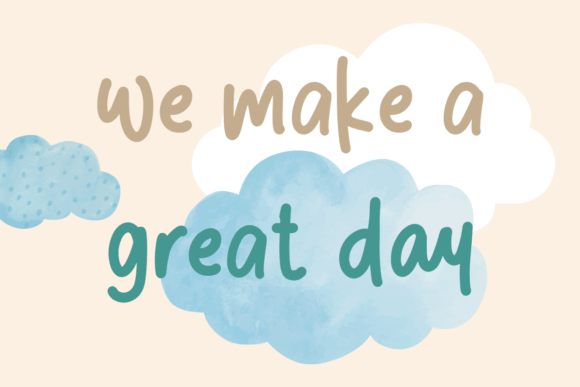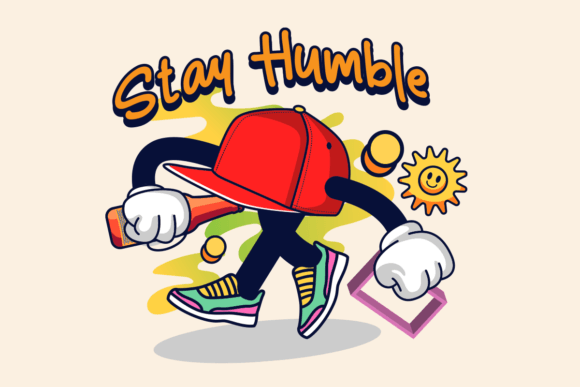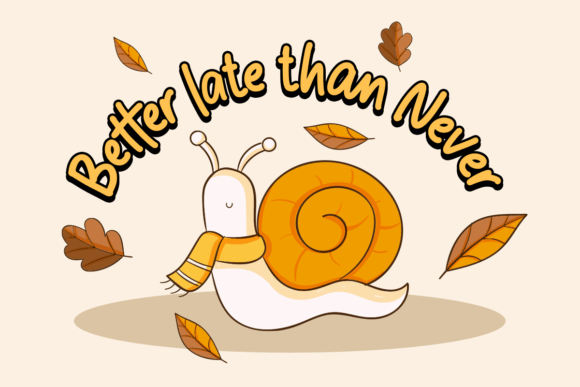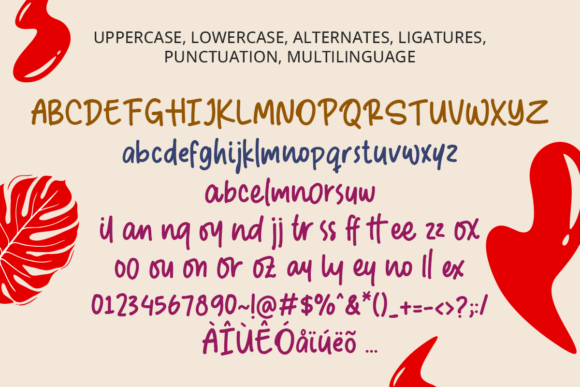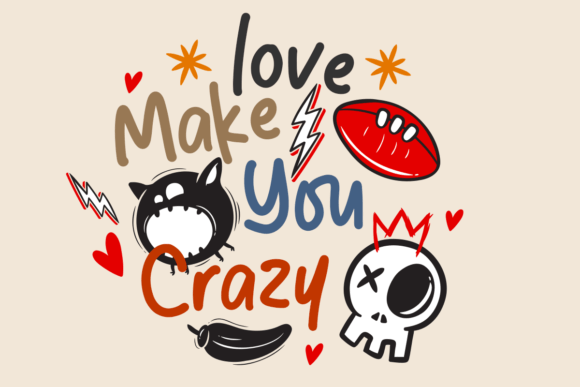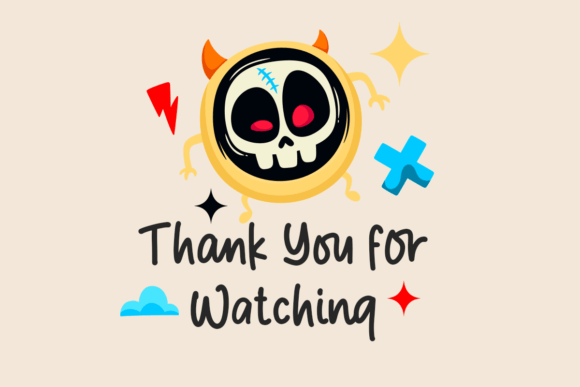
Discover the Charm of Bouchild Font: A Playful and Personal Typeface
I’ll never forget the moment I stumbled upon Bouchild Font while working on a project for a client’s birthday party invitation. I had been searching for the perfect font for hours, trying to find something that captured the playful and whimsical feel of the celebration. As soon as I saw Bouchild, I knew I had found the one. Its smooth and flowing strokes brought a personal and warm touch to the design, making it perfect for the occasion.
In this article, we’ll dive into the world of Bouchild Font, exploring its features, uses, and benefits. Whether you’re a designer, crafter, or creative hobbyist, you’ll learn how to make the most of this charming typeface and add a delightful touch to your projects.
An Honest Review of Bouchild Font
What I Love About Bouchild Font
- ✨ Smooth and flowing strokes: Bouchild Font has a natural, handwriting-like quality that makes it perfect for projects that require a personal touch.
- ✅ PUA encoded: With PUA encoding, you can access all the cute glyphs and swashes with ease, making it simple to add a unique touch to your designs.
- 🎨 Versatile: Bouchild Font is suitable for a wide range of projects, from greeting cards and invitations to social media posts and creative branding.
While Bouchild Font is an excellent choice for many projects, there are a few things to keep in mind:
- 🤔 Limited use in formal contexts: Due to its playful and whimsical nature, Bouchild Font may not be the best choice for formal projects or those that require a more professional tone.
The Story Behind Bouchild Font
Bouchild Font was designed with the intention of capturing the essence of natural handwriting. The designer, inspired by the beauty of handwritten letters and the joy of creative expression, created Bouchild Font as a way to bring a personal and warm touch to digital designs. With its smooth and flowing strokes, Bouchild Font is perfect for projects that require a playful and whimsical feel.
Q: What is PUA encoding, and how does it benefit Bouchild Font?
A: PUA (Private Use Area) encoding allows designers to access glyphs and swashes with ease, making it simple to add a unique touch to their designs. In the case of Bouchild Font, PUA encoding enables users to access the font’s full range of features and create beautiful, handwriting-like text.
Q: Is Bouchild Font suitable for formal projects?
A: While Bouchild Font is a beautiful and elegant font, it may not be the best choice for formal projects or those that require a more professional tone. However, it can be used in certain formal contexts, such as wedding invitations or luxury branding, with careful consideration of the design and tone.